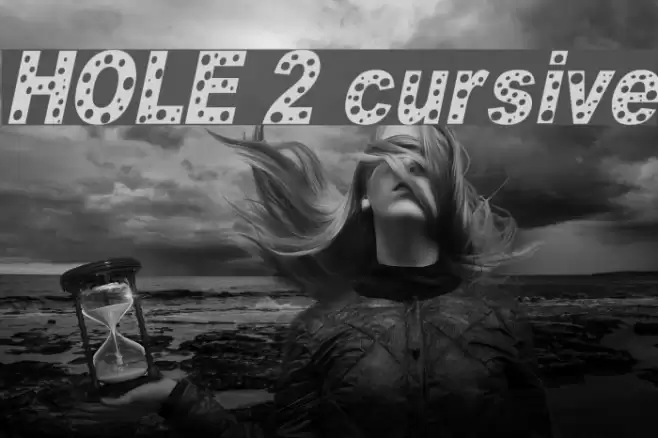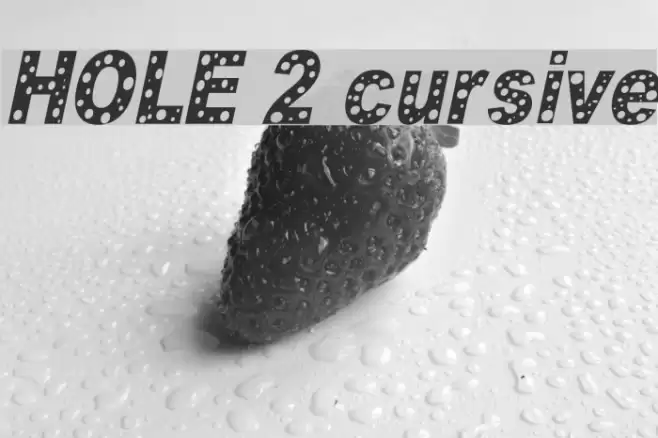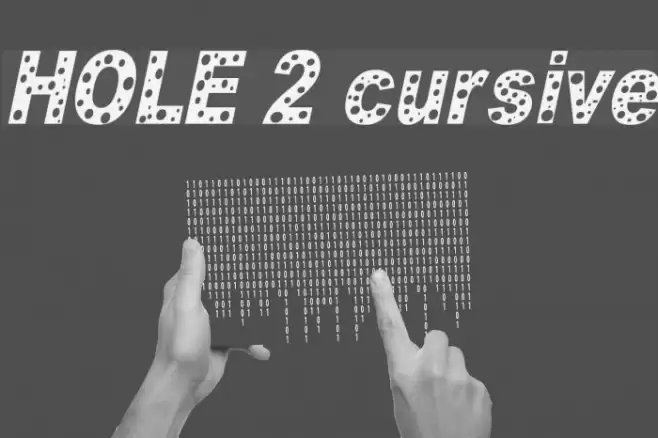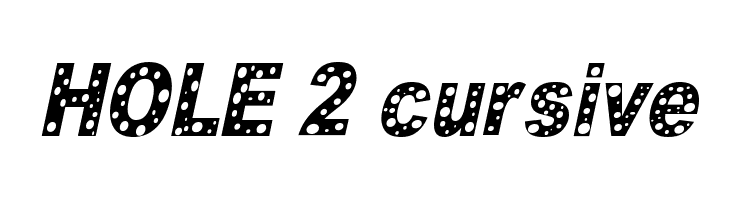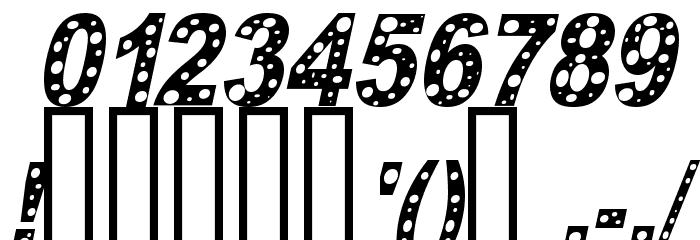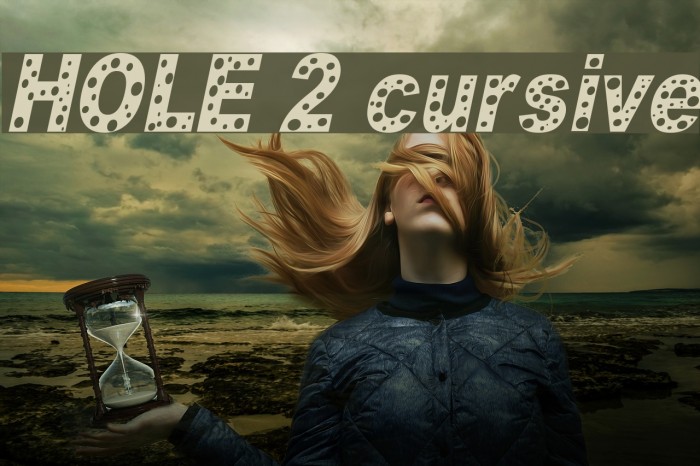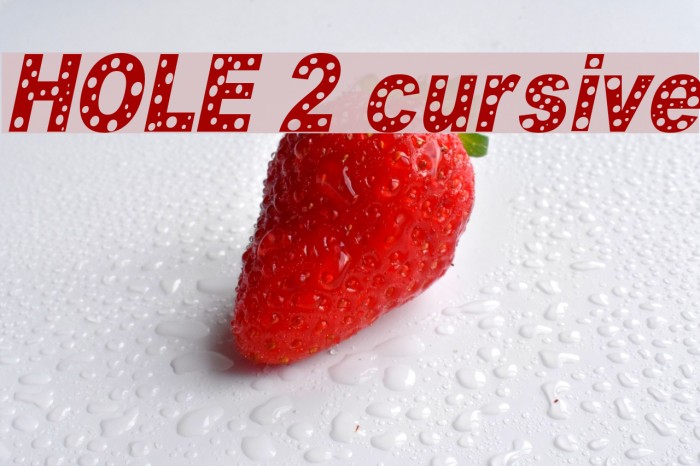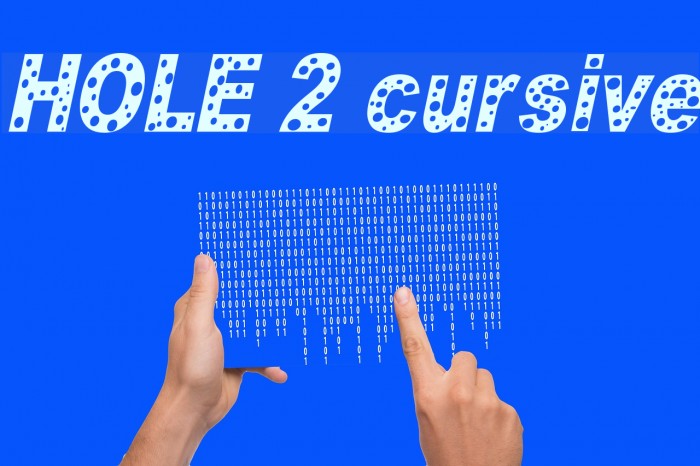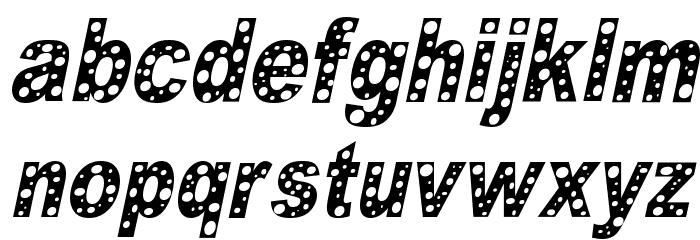
HOLE 2 cursive Font
HOLE 2 cursive Description
This font features a bold and playful design with a unique dotted pattern filling each character. The uppercase and lowercase letters maintain a consistent style, with rounded edges and a slightly italicized slant, adding a dynamic and lively feel. The numerals and special characters follow the same design principles, ensuring uniformity across all elements. The dotted pattern gives the font a decorative and eye-catching appearance, making it suitable for creative and fun projects. Its bold weight and distinctive style make it stand out, while the spacing between characters is balanced, allowing for clear readability.
A bold, dotted decorative font with a playful and dynamic style from bubble letter fonts.
- Proposed Projects: Ideal for party invitations, children's book covers, playful branding, and eye-catching posters.